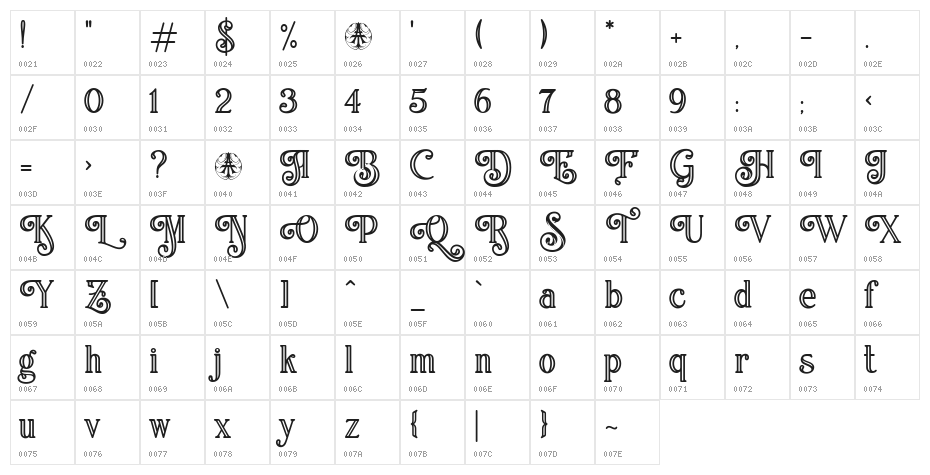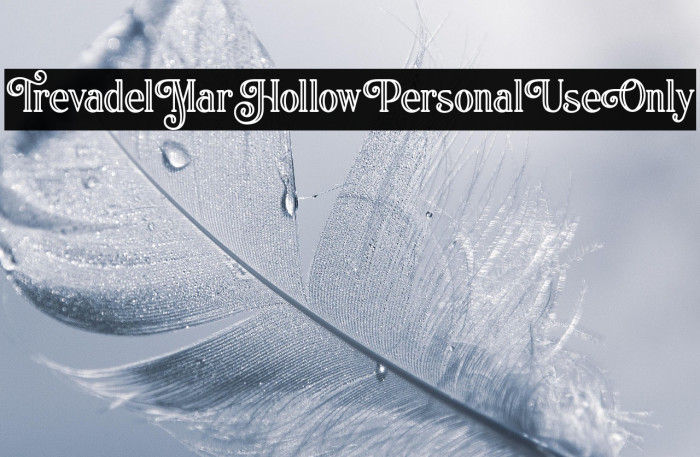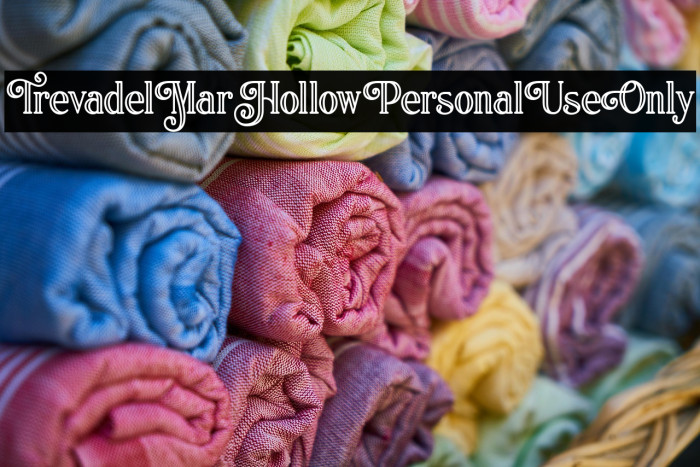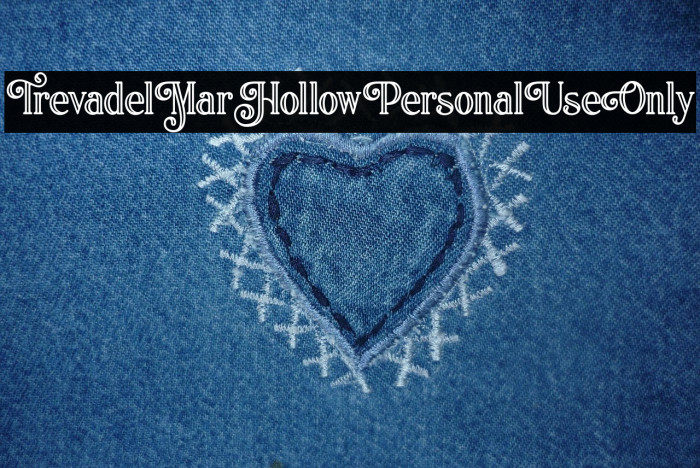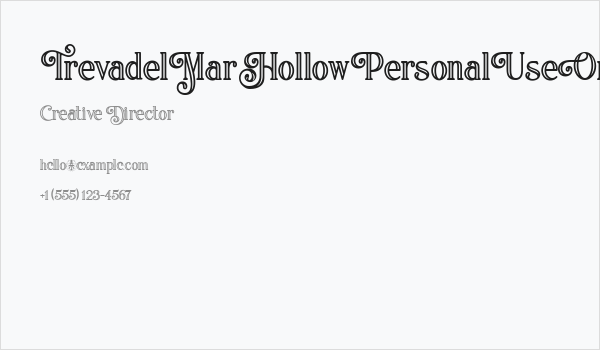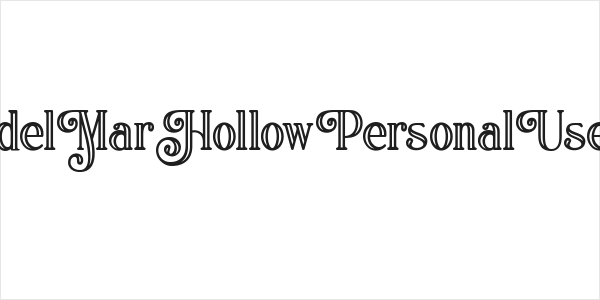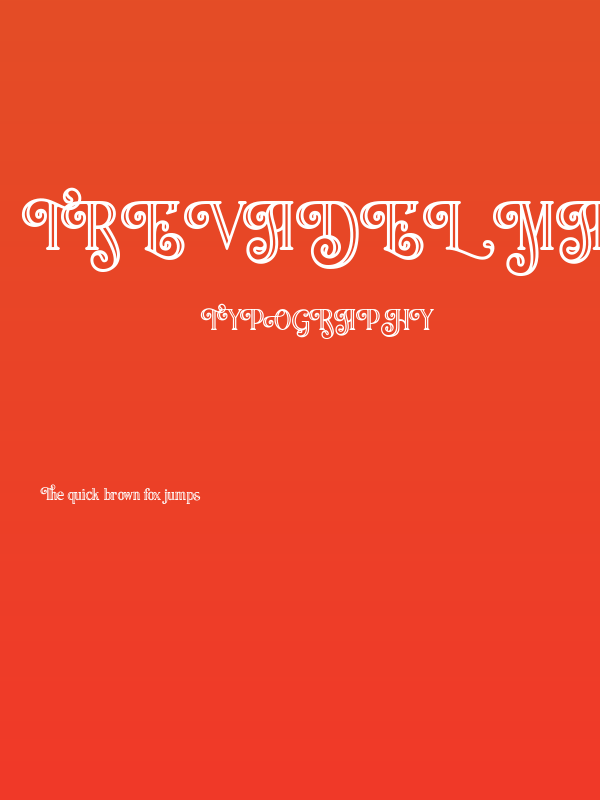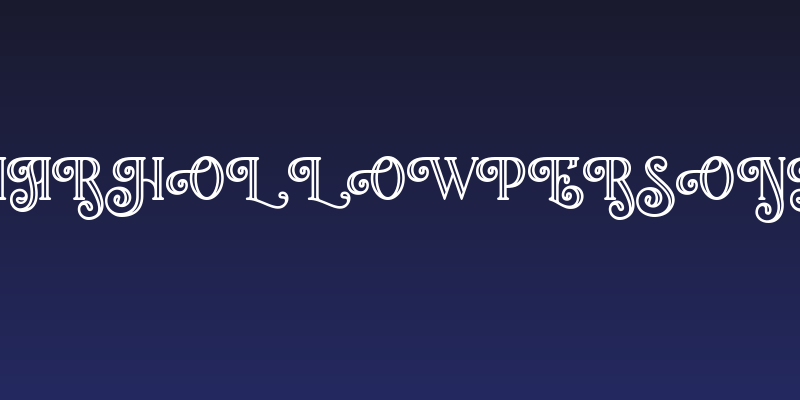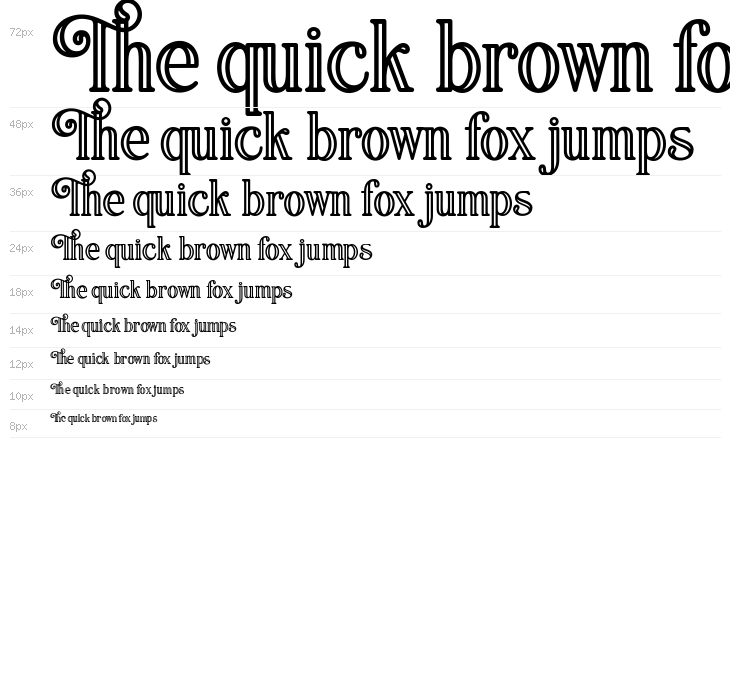
TrevadelMarHollowPersonalUseOnly Font
TrevadelMarHollowPersonalUseOnly Description
This font features an ornate and decorative style with hollow interiors, creating a unique and eye-catching appearance. The uppercase letters are embellished with intricate swirls and loops, giving them a whimsical and artistic flair. The lowercase letters maintain a more straightforward design while still incorporating subtle decorative elements. The numerals are bold and consistent with the overall aesthetic, ensuring readability while maintaining the font's distinct style. Special characters are creatively designed, adding to the font's versatility and charm. This font is ideal for projects that require a touch of elegance and creativity.
| Proposed Projects | Ideal for wedding invitations, greeting cards, branding, and artistic posters. |